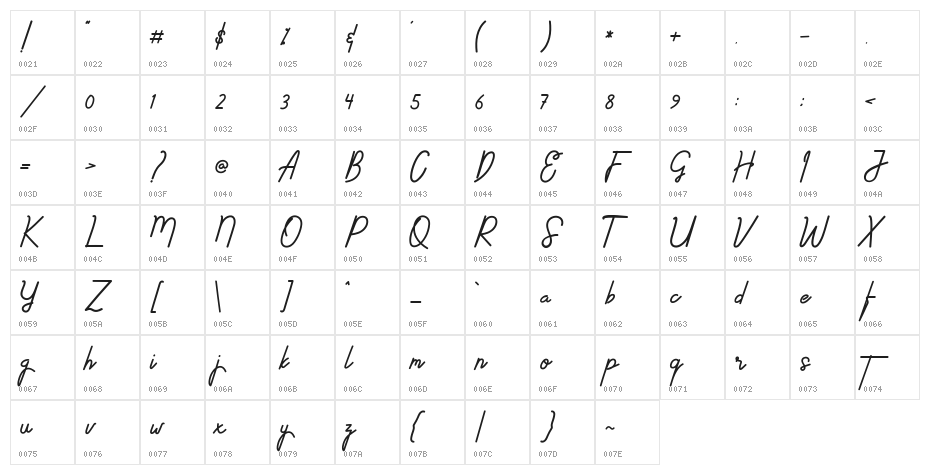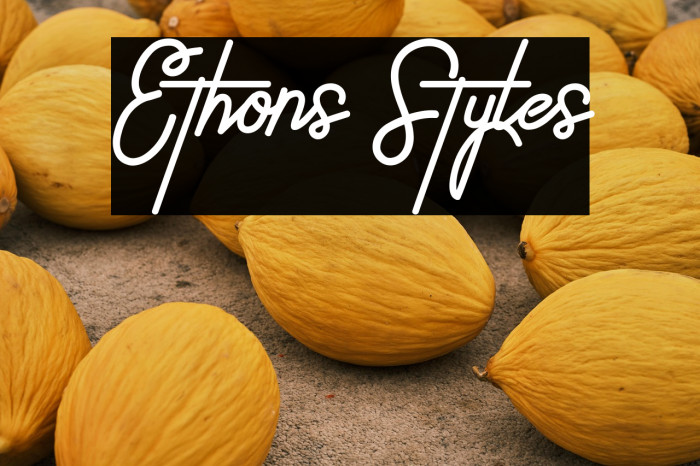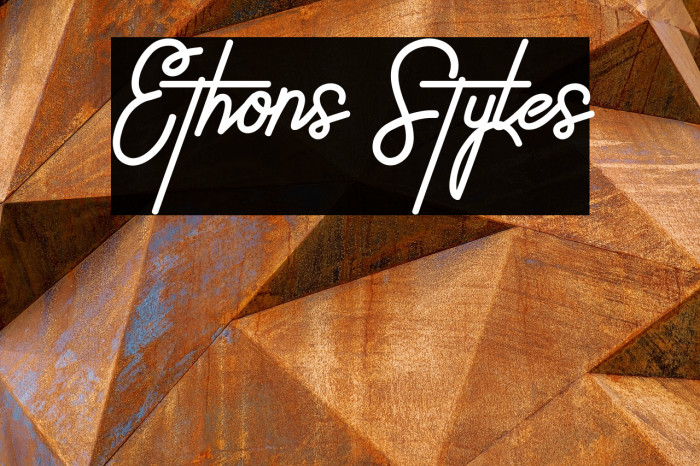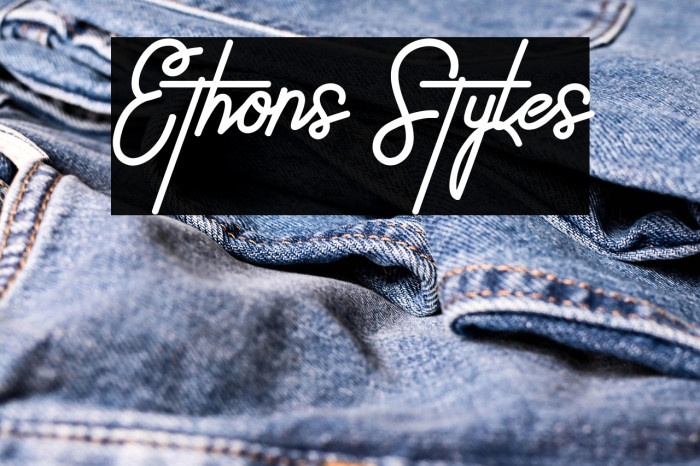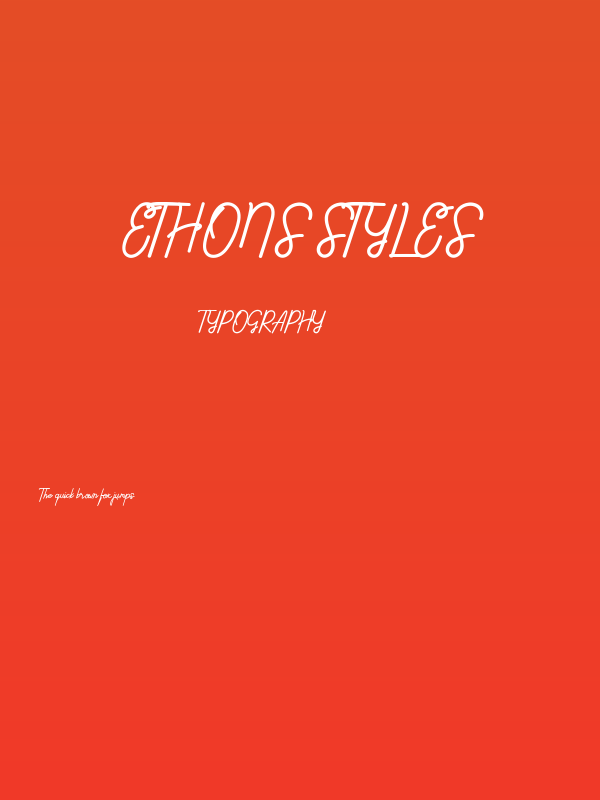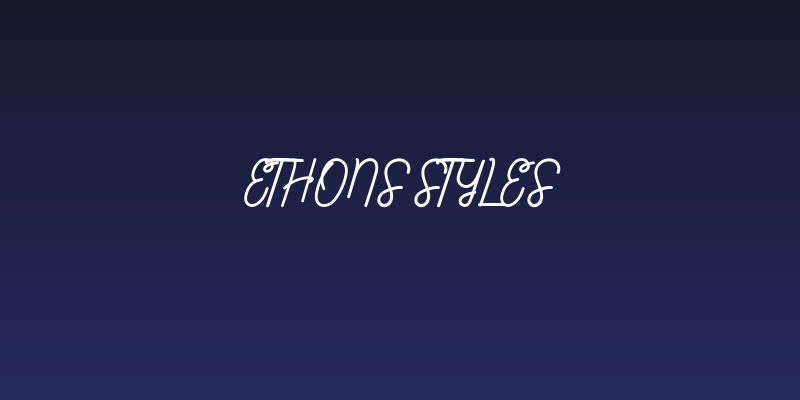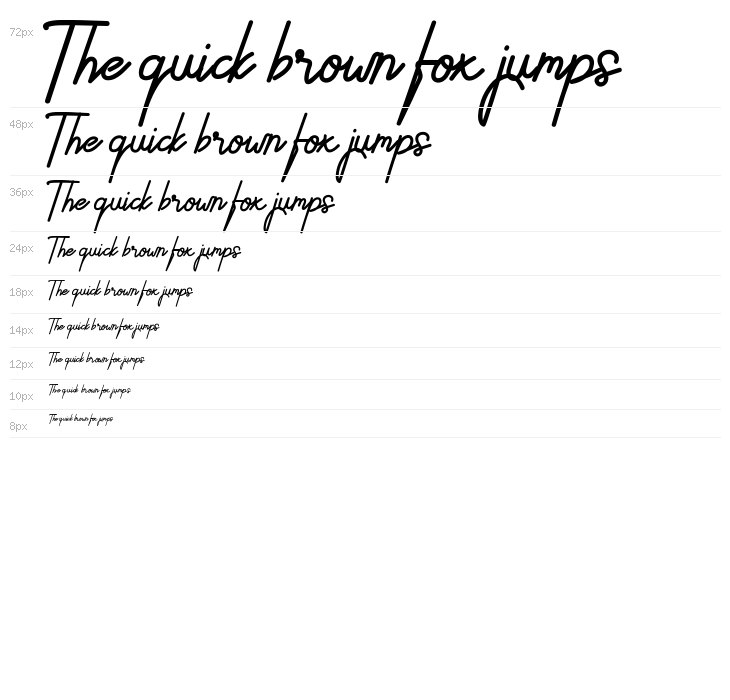
Ethons Styles Font
Ethons Styles Description
This font features a dynamic and flowing script style, characterized by its elegant and cursive letterforms. The uppercase letters exhibit a tall and slender appearance, while the lowercase letters maintain a consistent fluidity, enhancing the overall graceful aesthetic. The numerals and special characters are designed to complement the script style, ensuring a cohesive look across all text elements. The font's strokes are smooth and connected, providing a sense of movement and sophistication. Its handwritten quality makes it ideal for projects that require a personal touch.
| Use Case | Logos, Invitations, Personal stationery |
| Proposed Projects | Ideal for wedding invitations, greeting cards, branding, and personal stationery. |